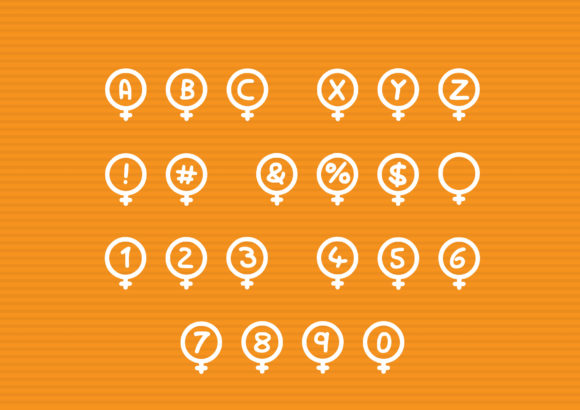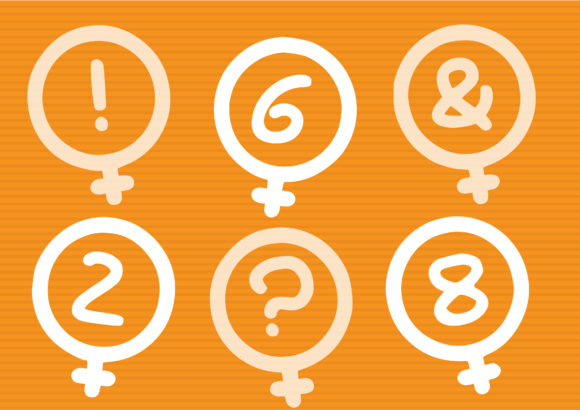
Introduction to Play Female Symbol Font
Play Female Symbol is definitely a feminine decorative font that will elevate the girl power feeling in your designs.
Use it for projects that need unique decorative typography .